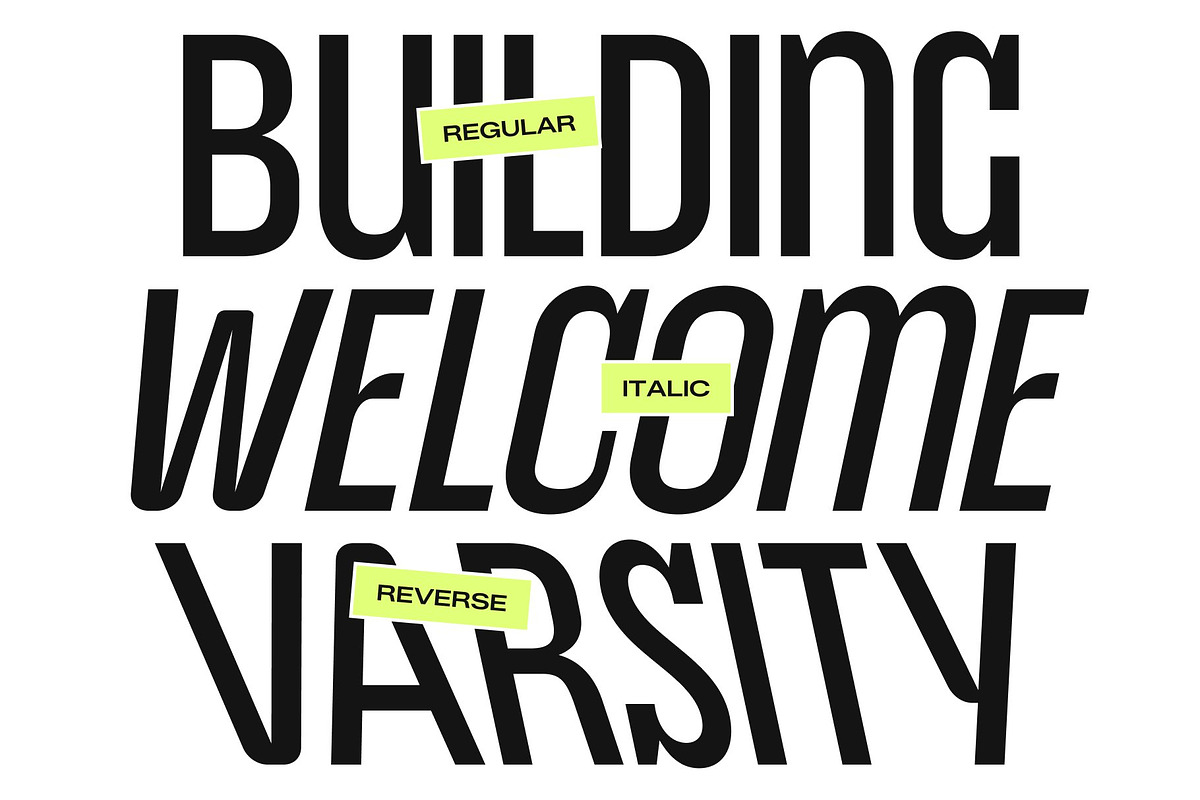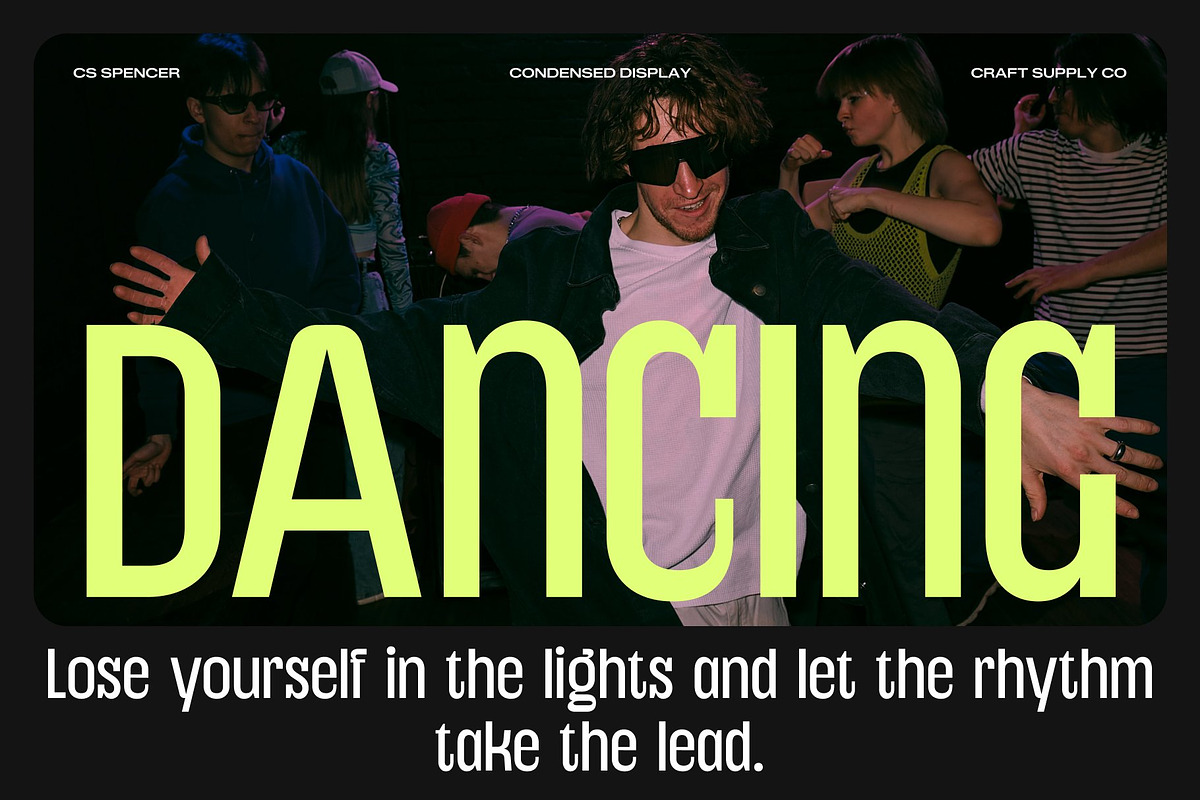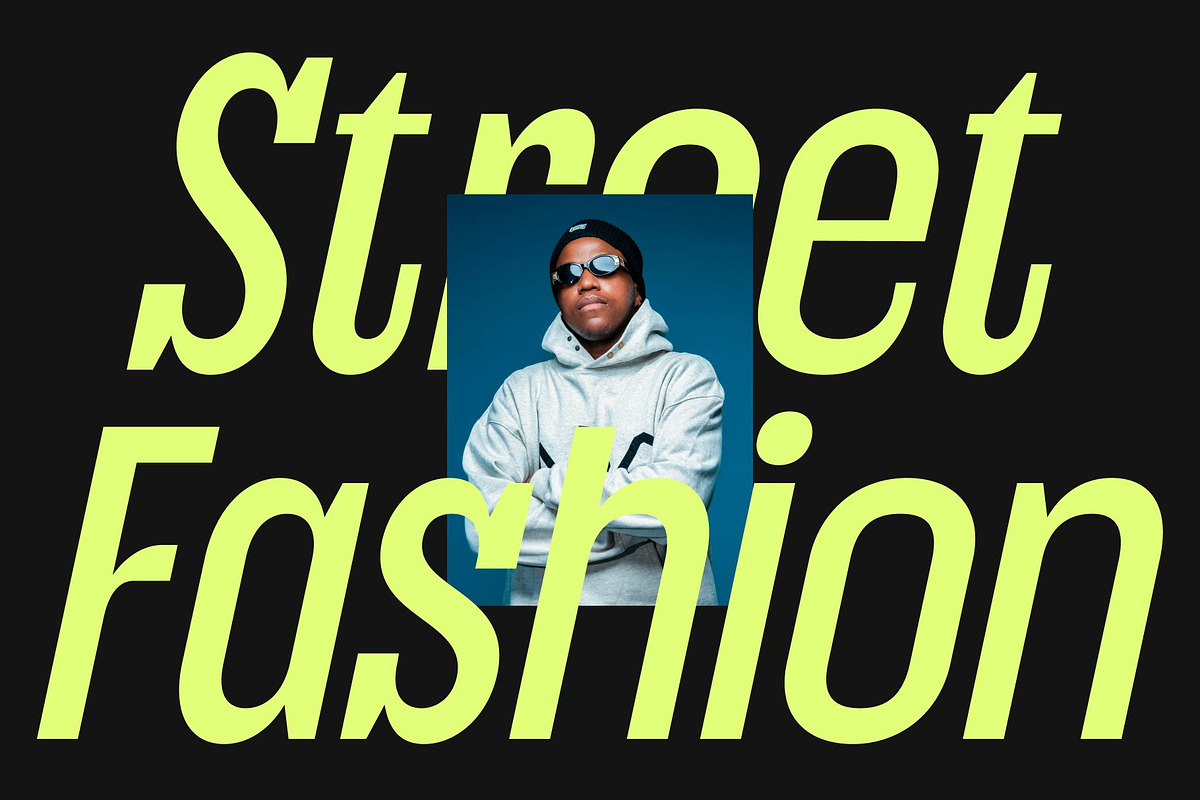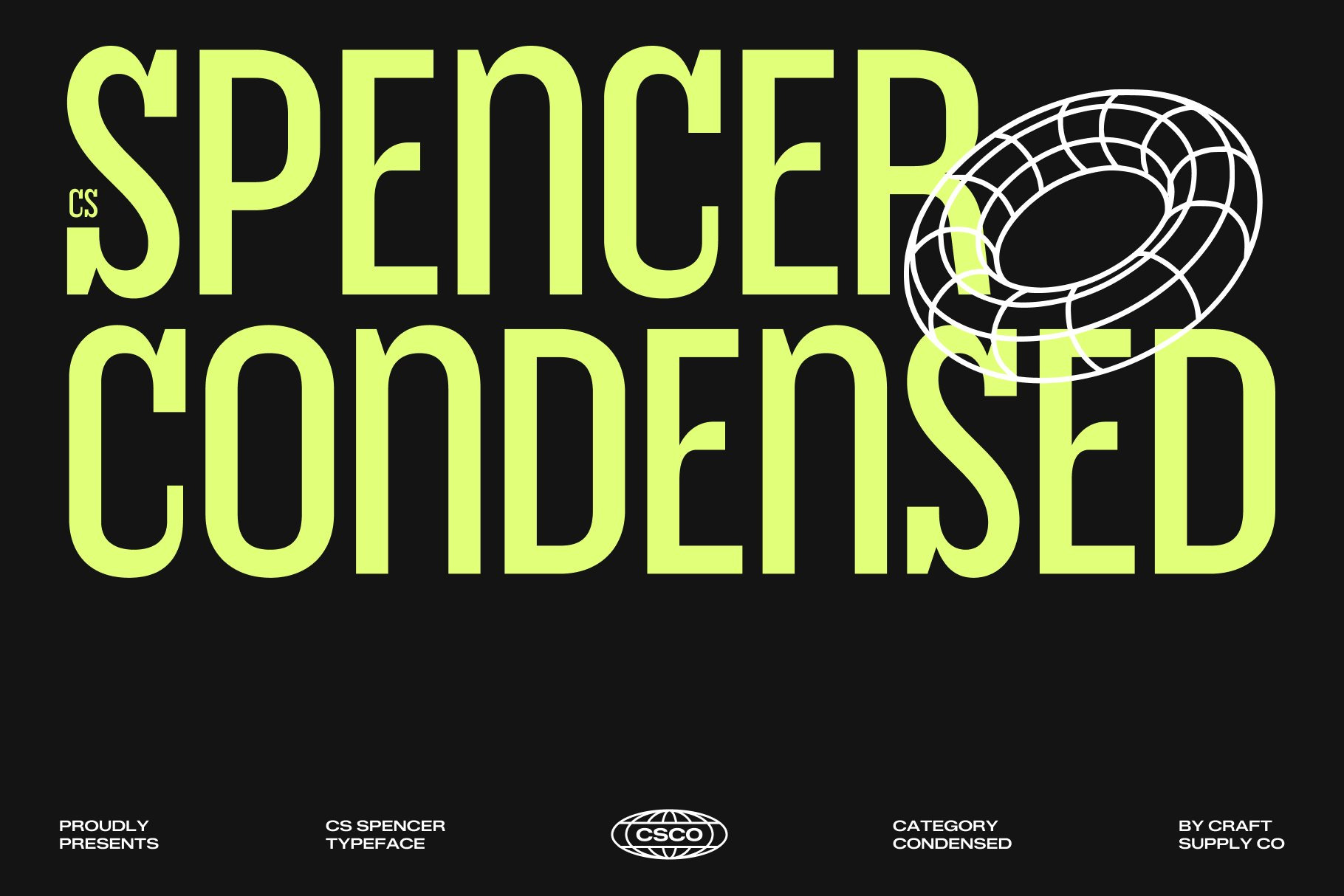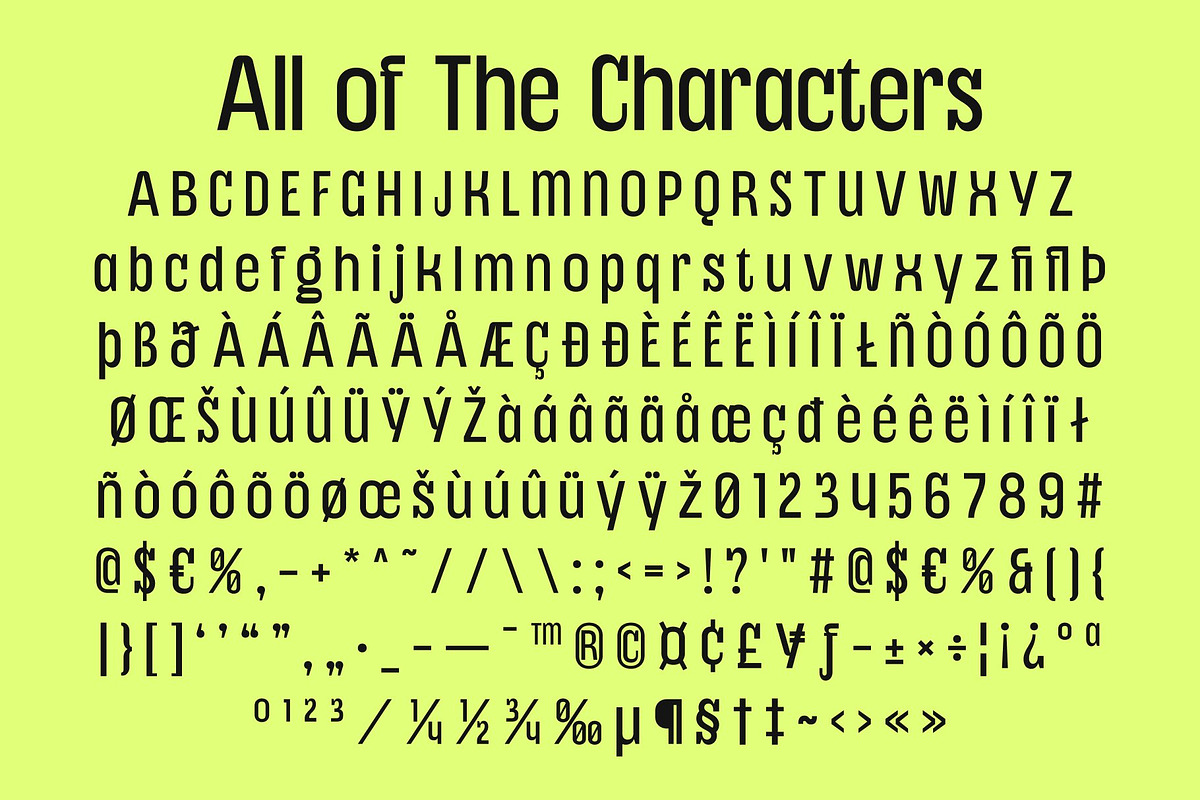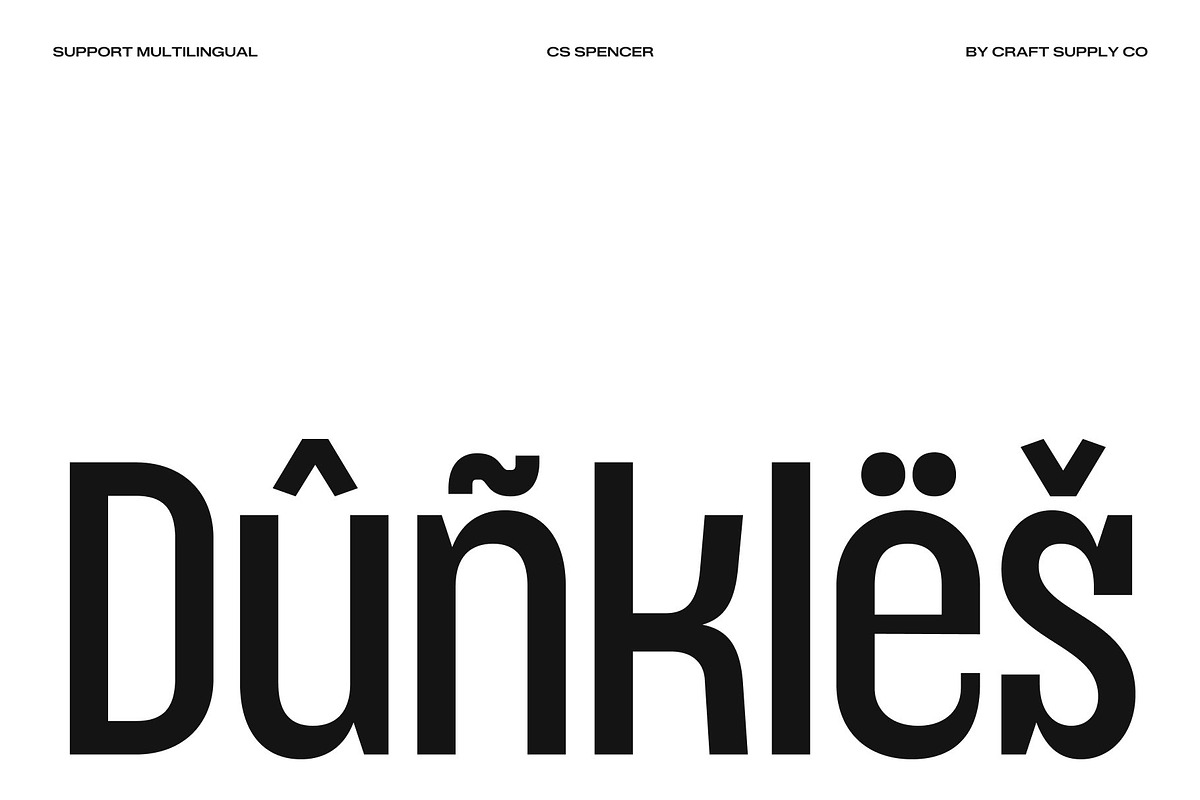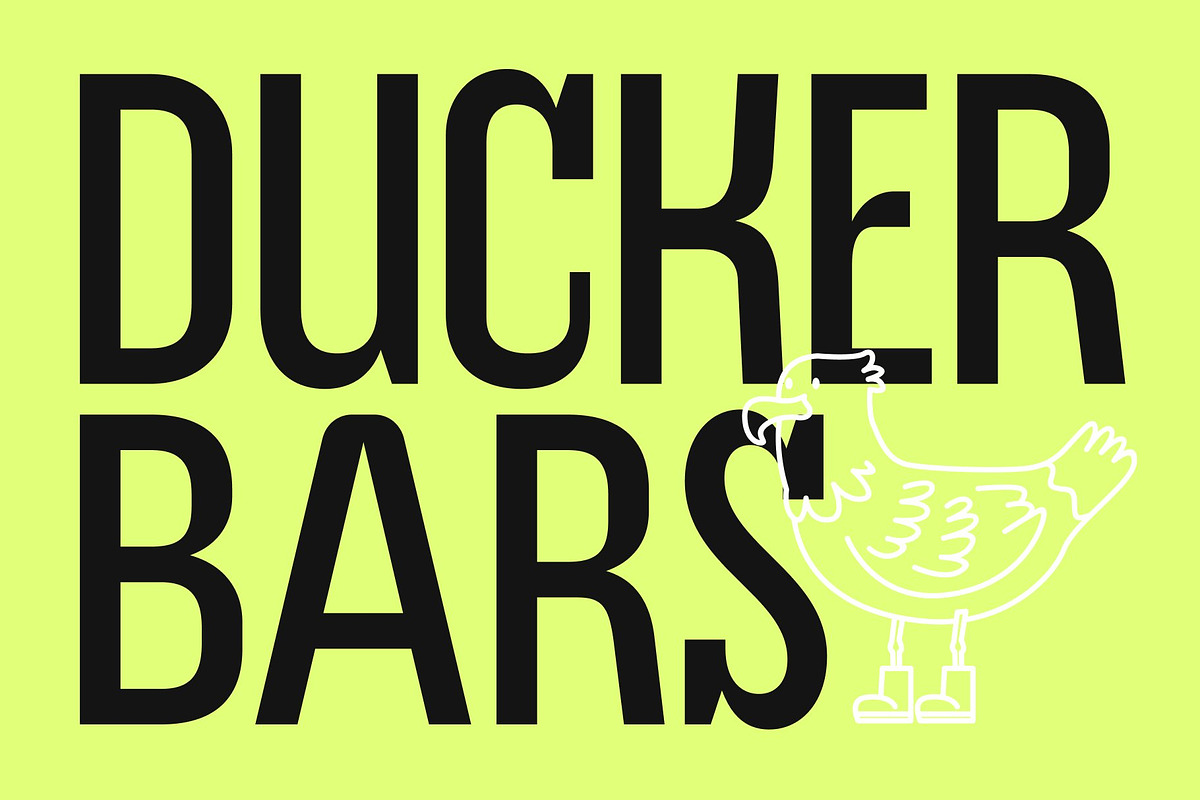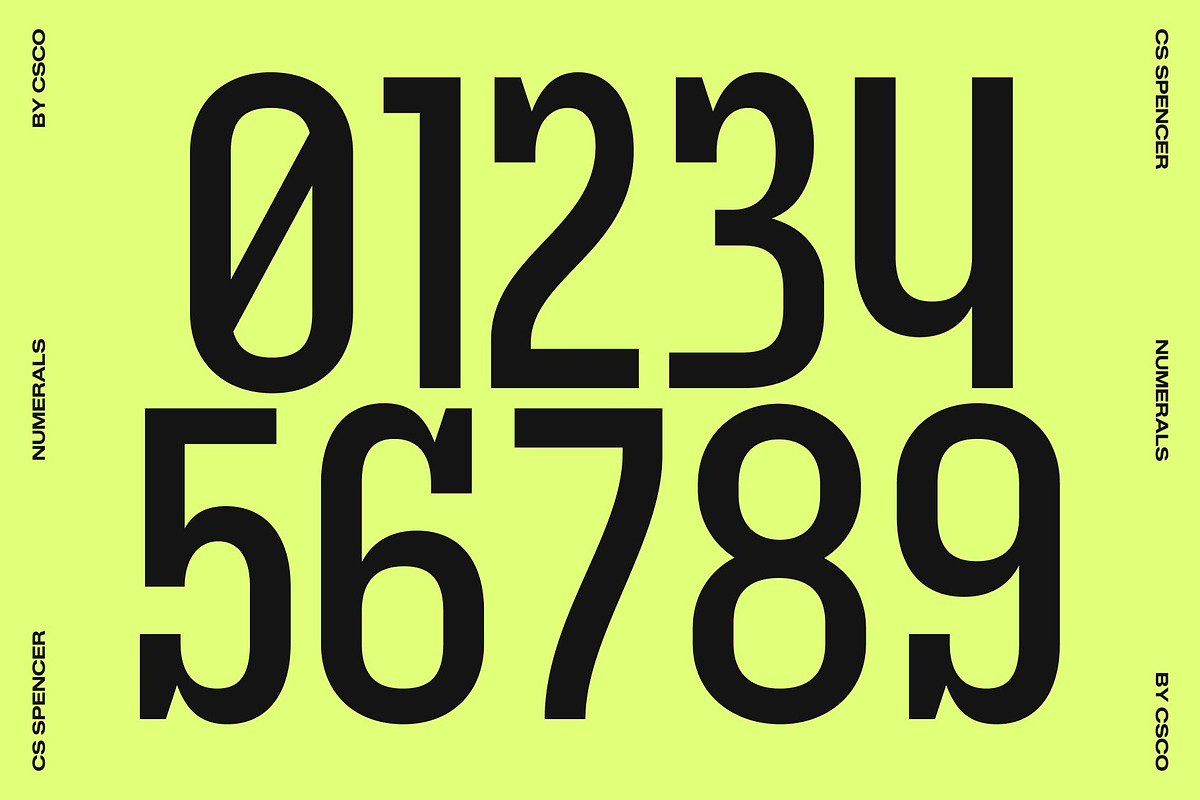
Spencer – Condensed Font
CS Spencer – Condensed Sans Serif with Playful Modern Energy
Condensed Sans Serif with Fresh Contemporary Character This is a modern condensed sans serif font that blends playful charm with clean contemporary design. Built to capture attention while maintaining clarity, this typeface offers a lively personality without sacrificing professionalism. Its compact proportions and balanced forms make it a versatile choice for designers seeking typography that feels both energetic and refined.
Compact Structure with Clear Readability The condensed construction allows text to fit comfortably into tight spaces while preserving excellent readability. Each character is carefully shaped to remain open and legible, even in dense layouts or large headlines. This efficient structure makes CS Spencer ideal for projects that need strong messaging in limited space without feeling crowded or heavy.
Playful Details with Modern Appeal This font stands out through subtle playful touches that add warmth and personality to the letterforms. The modern shapes keep the design clean and current, while the friendly character helps text feel approachable and engaging. This balance makes the font perfect for designs that want to feel fresh, stylish, and inviting.
Perfect for Headlines, Posters, and Branding From eye-catching headlines and posters to modern branding and digital campaigns, this font adapts effortlessly to a wide range of creative projects. Its blend of readability, compact efficiency, and playful modern style ensures your designs feel vibrant, memorable, and full of contemporary energy.
CS Spencer Regular
CS Spencer Italic
CS Spencer Reverse Italic